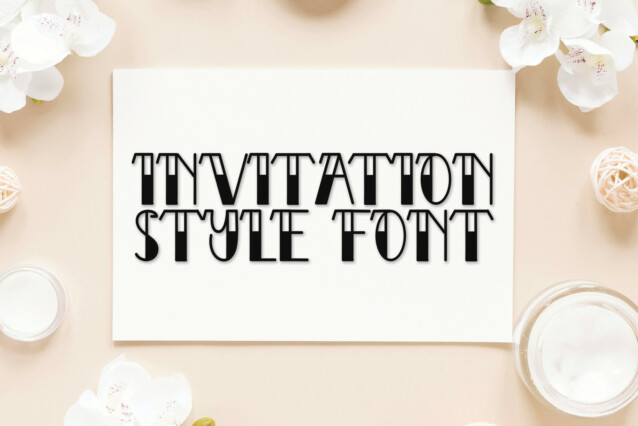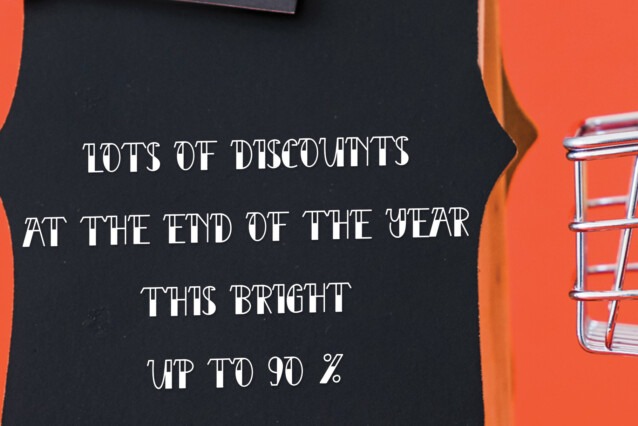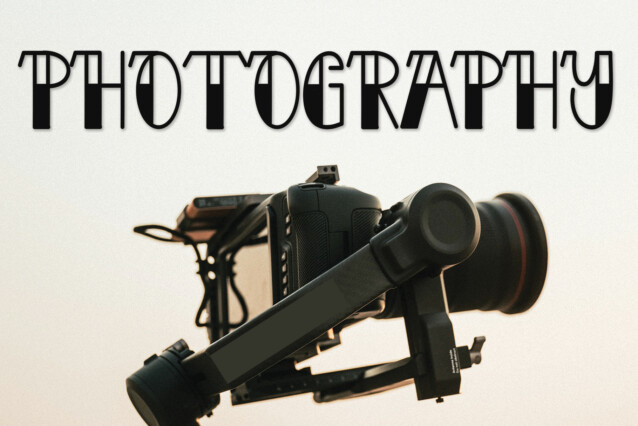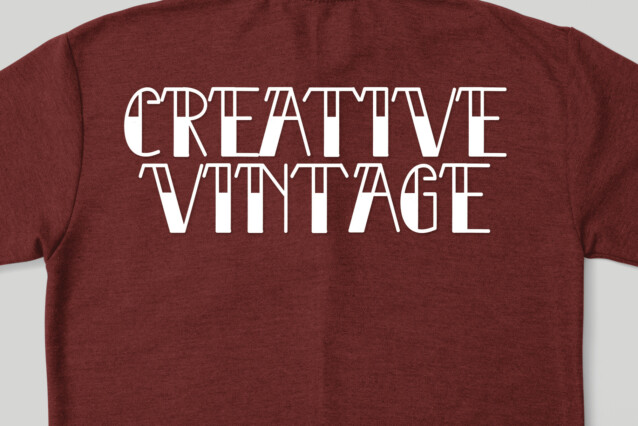
Active Robots Display Font
Active Robots Display Font is perfect for wall displays, wedding invitations, social media post logos, advertisements, product packaging, product designs, labels, photography, watermarks, invitations, stationery and much more.